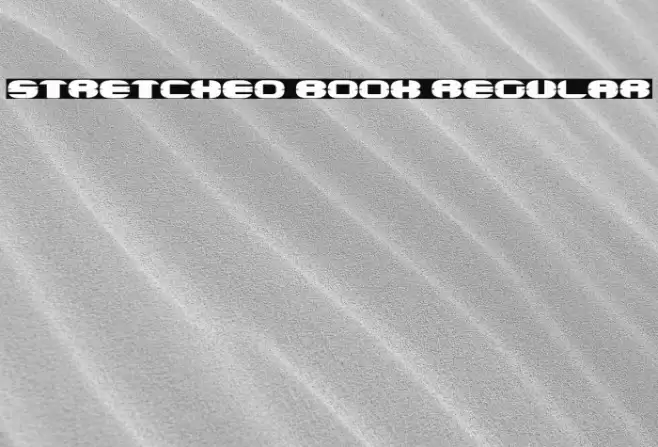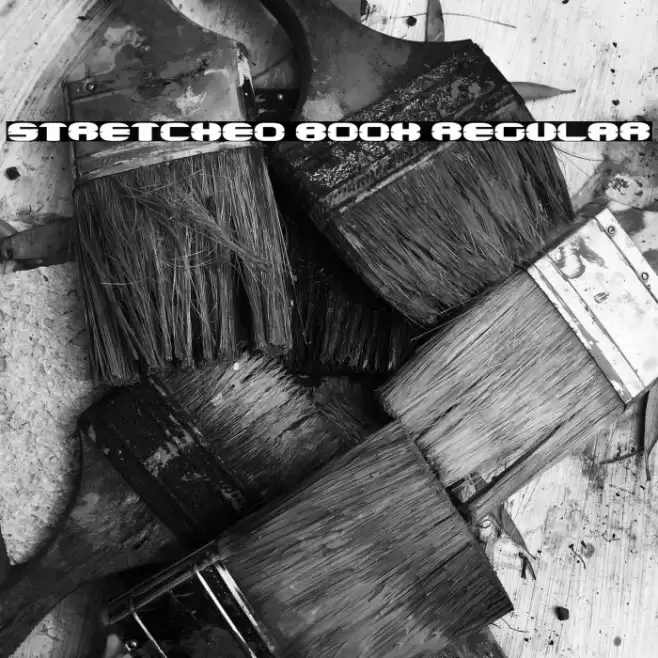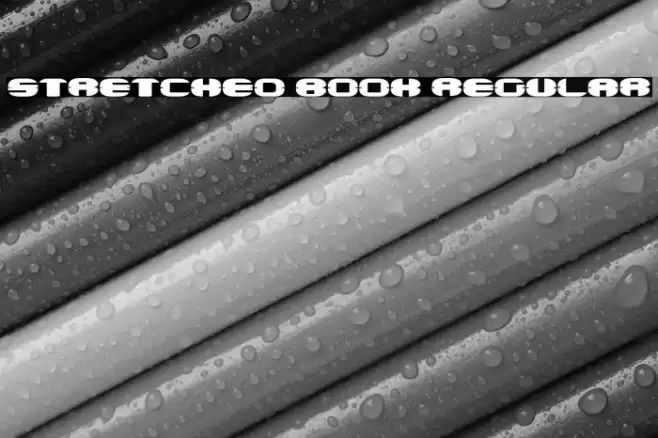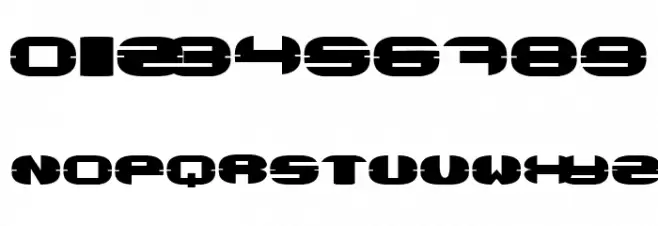
Stretched Book Regular Font
Stretched Book Regular Description
This font features a bold and futuristic design with a distinctive geometric style. The characters are wide and have a stretched appearance, giving them a unique, modern look. The strokes are thick and consistent, creating a strong visual impact. The font's design includes rounded edges and smooth curves, which add a touch of softness to its otherwise robust structure. The spacing between characters is tight, enhancing the compact and cohesive feel of the text. This font is ideal for projects that require a bold statement and a contemporary aesthetic.
A bold, futuristic font with a geometric and stretched design from Uncategorized fonts.
- Proposed Projects: Ideal for branding, headlines, posters, and digital interfaces that require a modern and impactful look.
- Width: Expanded
- Character Spacing: Tight